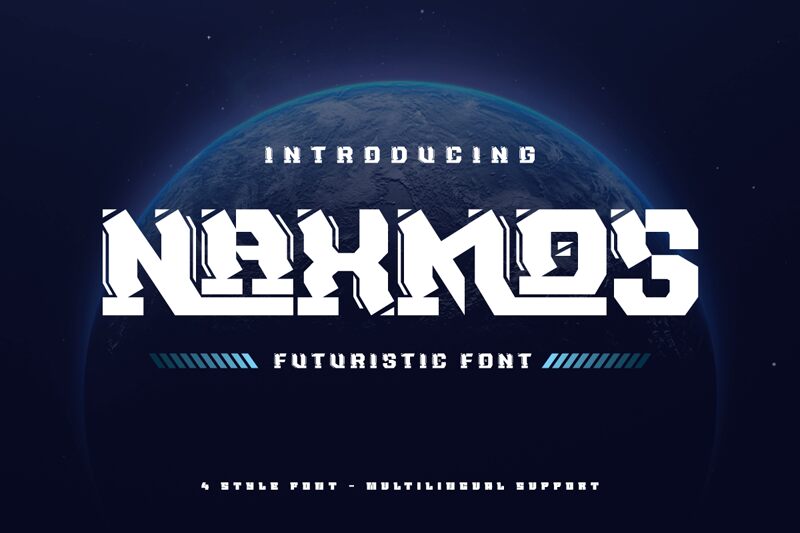
NAXMOS Outline Italic
Naxmos Outline Italic stands out with its bold, outlined characters that exude a modern and dynamic vibe. Crafted by Twinletter, this member of the Naxmos family boasts an italic style that infuses text with a sense of movement and energy, making it particularly captivating. The outlines create an engaging visual texture that adds depth and character to the letterforms.
This font's bold personality is well-suited for attention-grabbing headlines, striking posters, and any project where a touch of flair is needed. Its outlined nature also makes it perfect for use over images or on varied backgrounds, as it provides excellent contrast and readability. With its combination of style and impact, Naxmos Outline Italic is ideal for designers looking to make a statement in their creative endeavors.